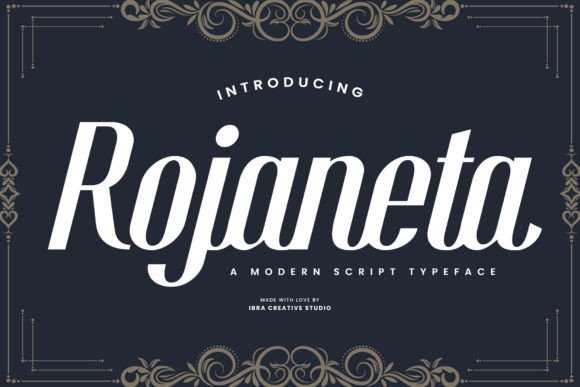
Rojaneta
First Impressions: A Script with Soul
Rojaneta arrives with a quiet confidence, its curves smooth yet deliberate. It’s not the kind of script that shouts; it whispers. The letterforms carry a subtle elegance, as if they were hand-drawn by someone who values precision and personality in equal measure. This font feels like a conversation between tradition and modernity—its structure is grounded, but its flow is fluid.
A Visual Personality That Resonates
Rojaneta exudes a refined, almost vintage charm. It’s the kind of typeface that would feel at home on a luxury brand’s packaging or a high-end editorial layout. Its visual rhythm suggests sophistication, but without being overly ornate. It’s versatile enough to work across multiple mediums, from print to digital, making it a strong candidate for a wide range of design projects.
Real-World Use Cases: Where Does Rojaneta Shine?
When evaluating a font for real-world application, it’s essential to consider how it performs in different contexts. Rojaneta excels in logo design, where its stylized form can help create a memorable brand mark. It also works well in packaging design, especially for products that aim to convey craftsmanship and quality.
In social media graphics, Rojaneta adds a touch of elegance without overwhelming the message. Its legibility at smaller sizes makes it suitable for website headers and blog graphics. For editorial design, it offers a refined alternative to more common display fonts, helping content stand out while maintaining a cohesive aesthetic.
It’s also worth noting that Rojaneta performs admirably in printable design scenarios such as Cricut projects and Canva templates. Its clean lines ensure it translates well from screen to paper, which is a crucial factor for designers working across both digital and physical mediums.
Where to Use Carefully: Balancing Beauty and Function
While Rojaneta is visually appealing, it’s important to use it judiciously. In large headlines, it can be striking, but its decorative nature may not always support clear communication. Similarly, it’s best reserved for short phrases or quotes rather than lengthy body text.
For brand marks, Rojaneta offers a unique identity, but its use should be consistent to maintain brand recognition. When paired with other typefaces, it can add visual interest, but care must be taken to ensure font pairing doesn’t compromise readability or hierarchy.
On premium packaging or merchandise, Rojaneta can elevate the perceived value of a product. However, its use in supporting text or social posts requires caution—too much can distract from the main message.
Readability and Professionalism: The Designer’s Perspective
Readability is key in any design project, and Rojaneta holds up reasonably well when tested in black and white. However, its script nature means it may struggle in small sizes or low-resolution contexts. Always test it at actual print size and on various backgrounds to ensure clarity.
Its serif font influences make it feel slightly more traditional compared to sans serif alternatives, which can affect perceptions of professionalism. For web design or digital ads, it’s best used sparingly to avoid overwhelming the user experience.
When used in brand identity, Rojaneta can help establish a distinct visual voice, but consistency is critical. Pairing it with a complementary display font or handwritten font can enhance its versatility without sacrificing clarity.
Practical Designer Notes: What to Test Before Committing
Before finalizing your choice, consider these practical steps:
- Test it in black and white to ensure it remains legible under all lighting conditions.
- Check small-size readability—this is especially important for web and mobile applications.
- Try it on real mockups to see how it interacts with other design elements.
- Compare uppercase and lowercase to ensure balance and consistency.
- Review spacing and kerning to confirm it supports clean, professional layouts.
- Test it beside other fonts, including serif, sans serif, script, handwritten, and display styles, to ensure it complements your design goals.
Final Thoughts: A Premium Font with Purpose
Rojaneta is a premium font that brings a unique visual character to any project. Whether you’re crafting a brand identity, designing social media graphics, or creating printable design assets, it has the potential to elevate your work. However, its beauty should be balanced with practicality to ensure it serves both aesthetic and functional needs.
Ultimately, Rojaneta is a creative font that deserves thoughtful application. With the right context and pairings, it can become a powerful tool in your design arsenal. Just remember to respect its strengths and limitations, and always prioritize clarity and consistency in your design decisions.